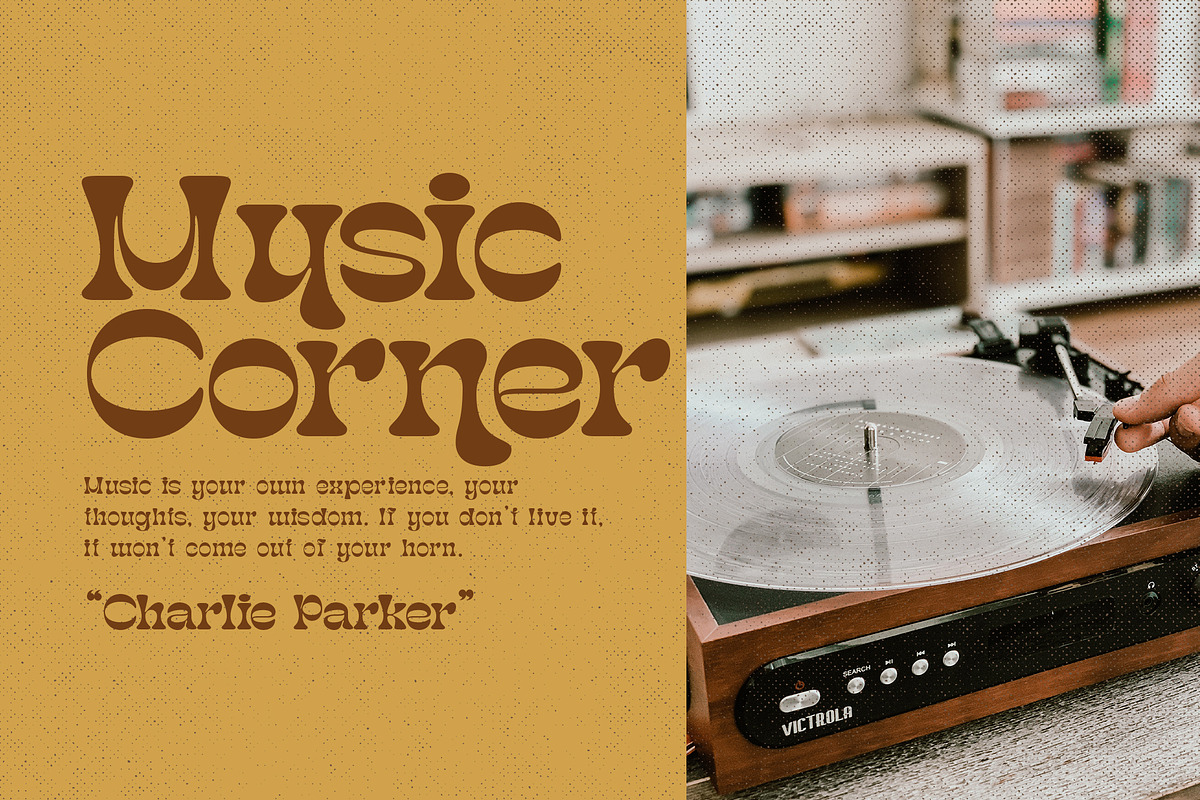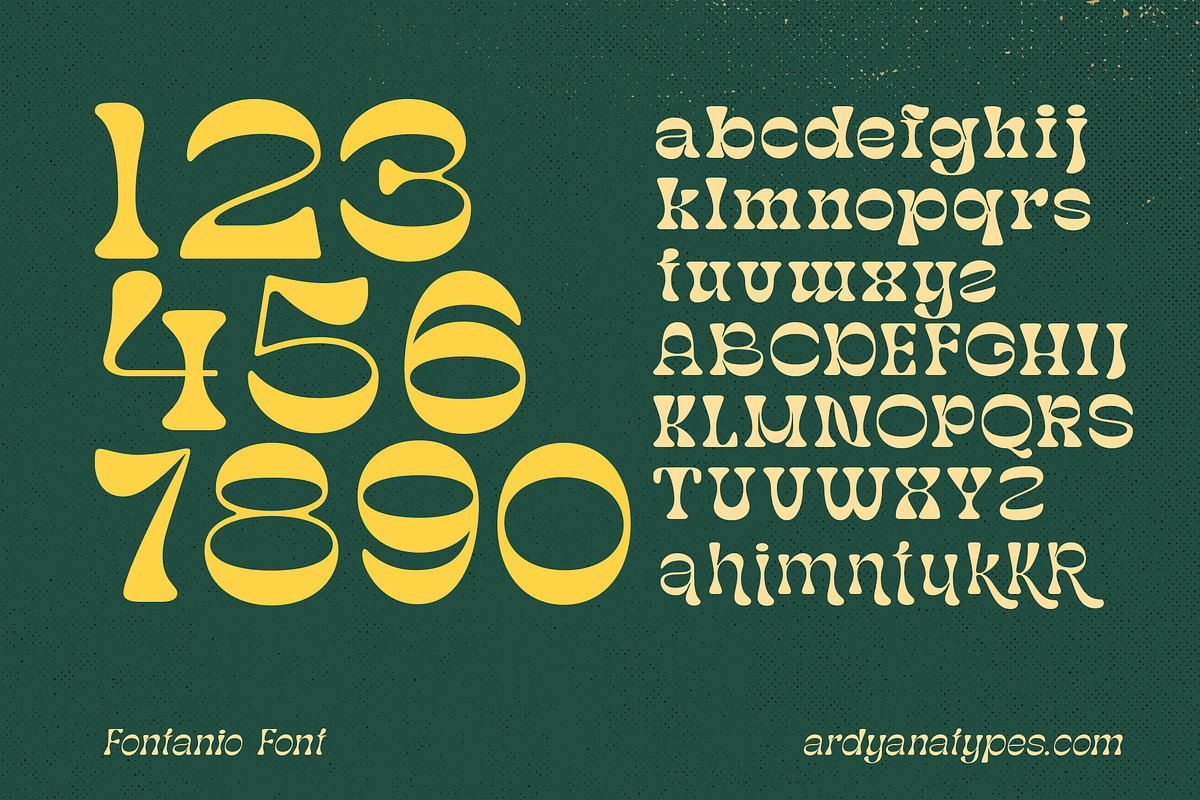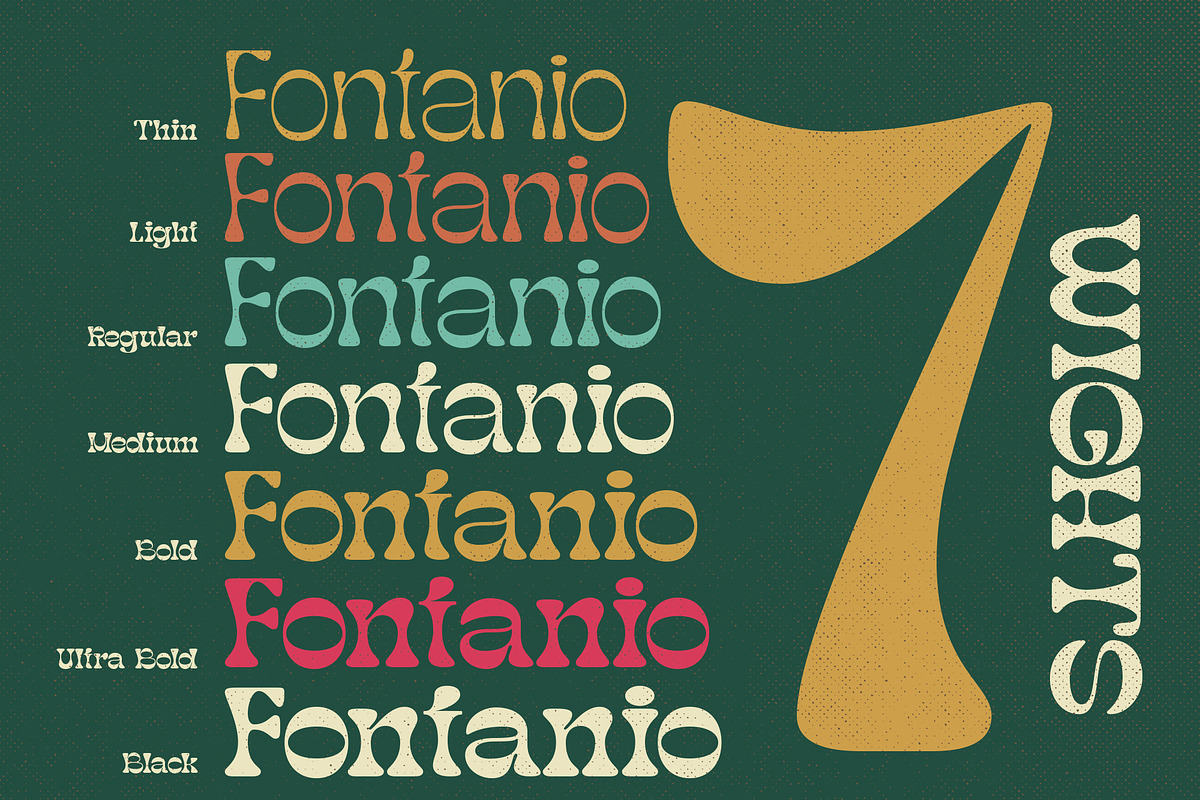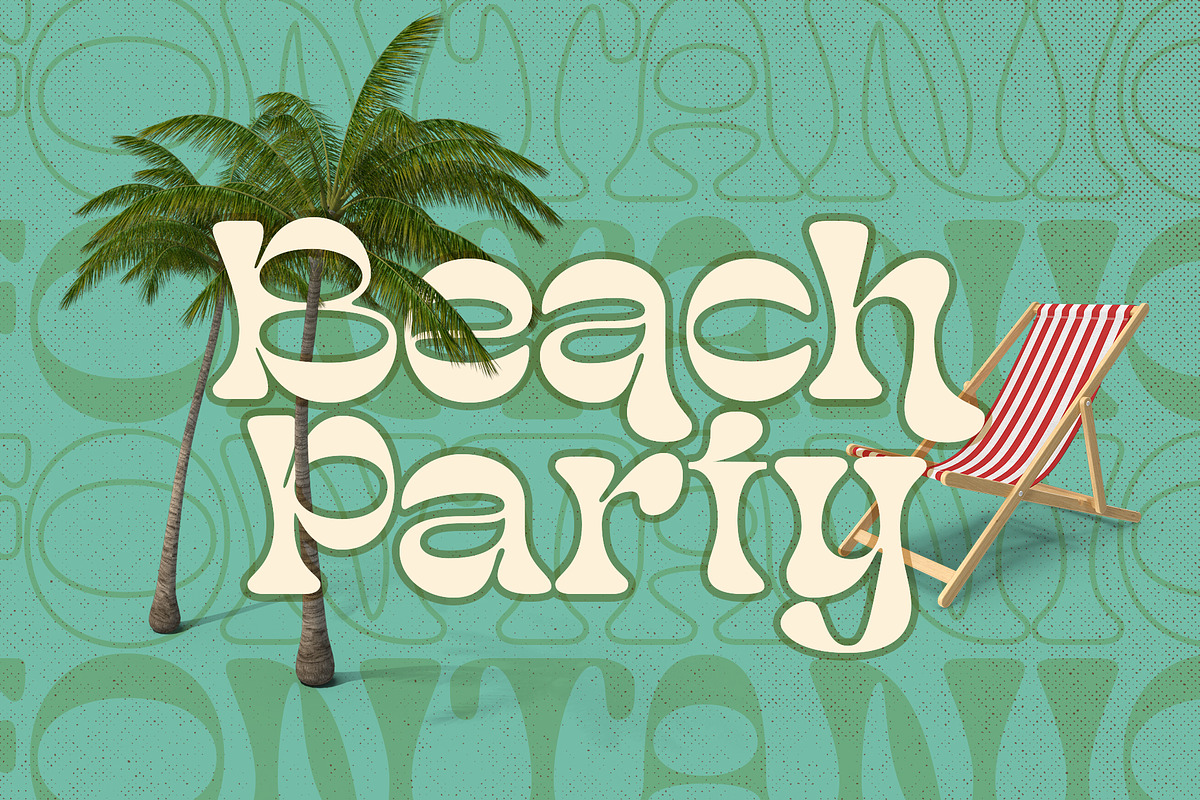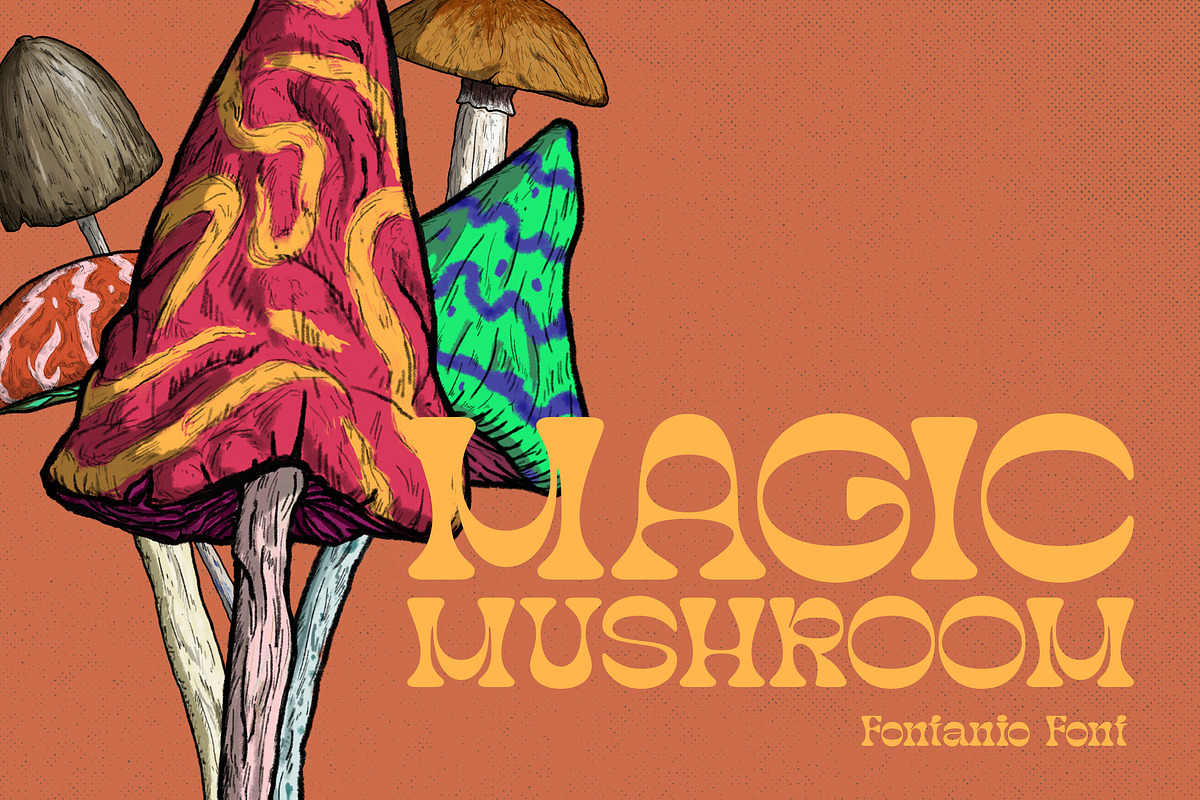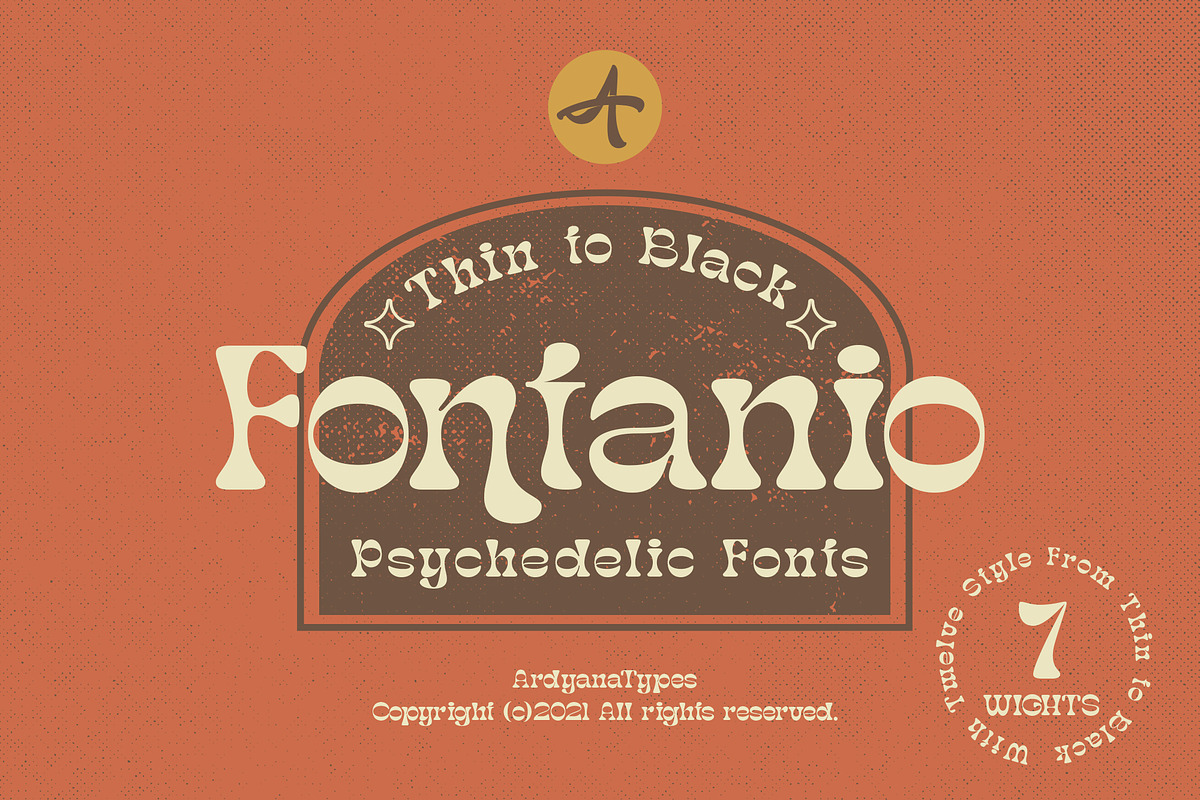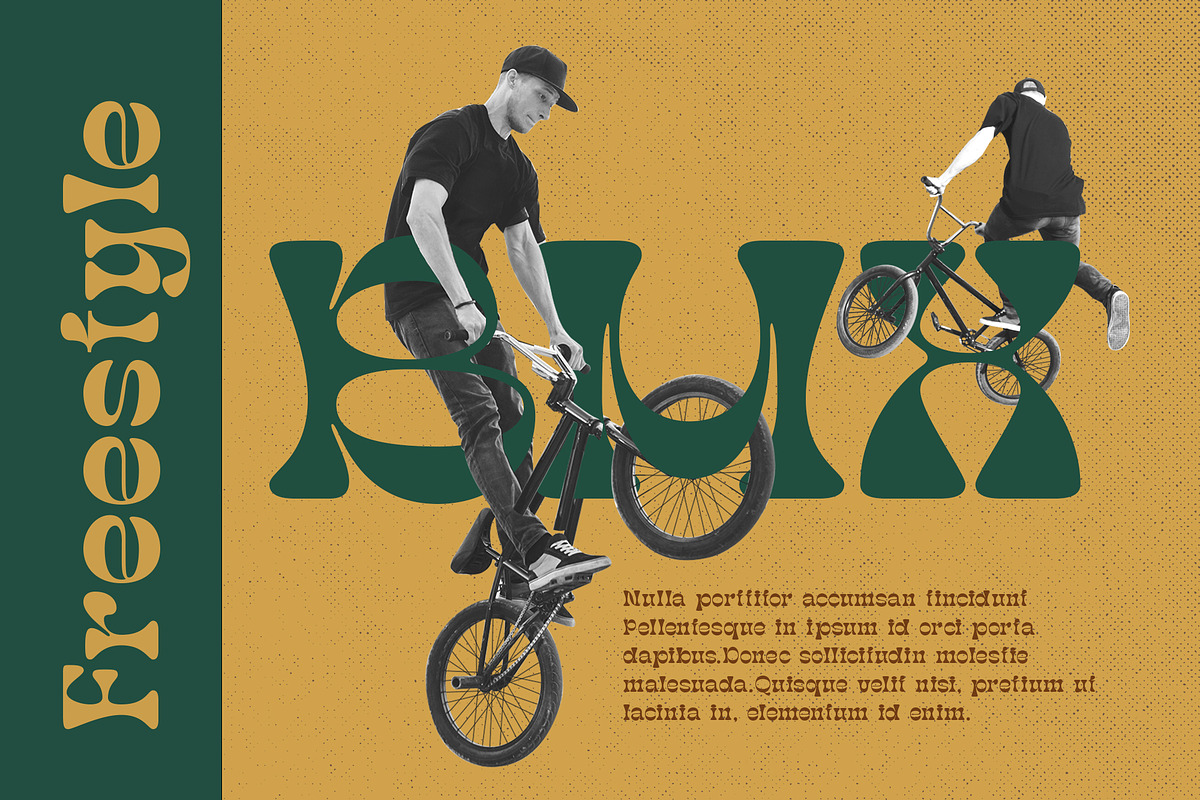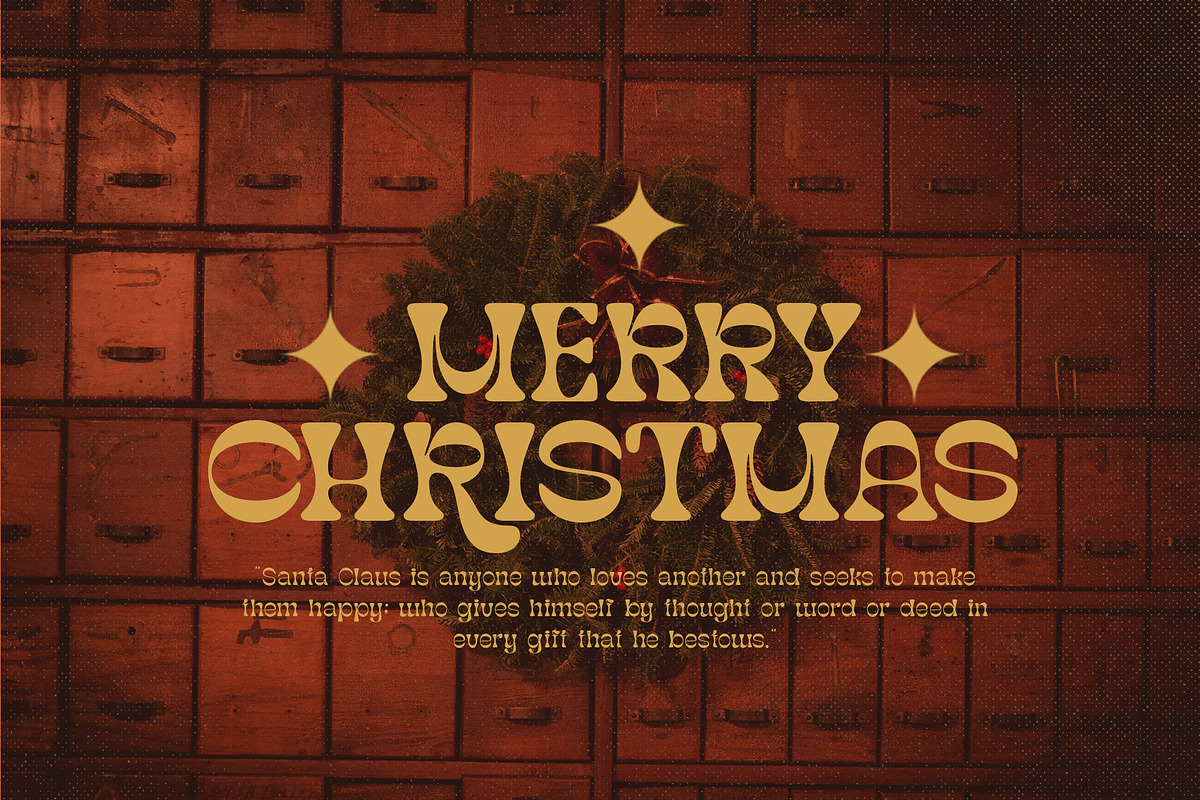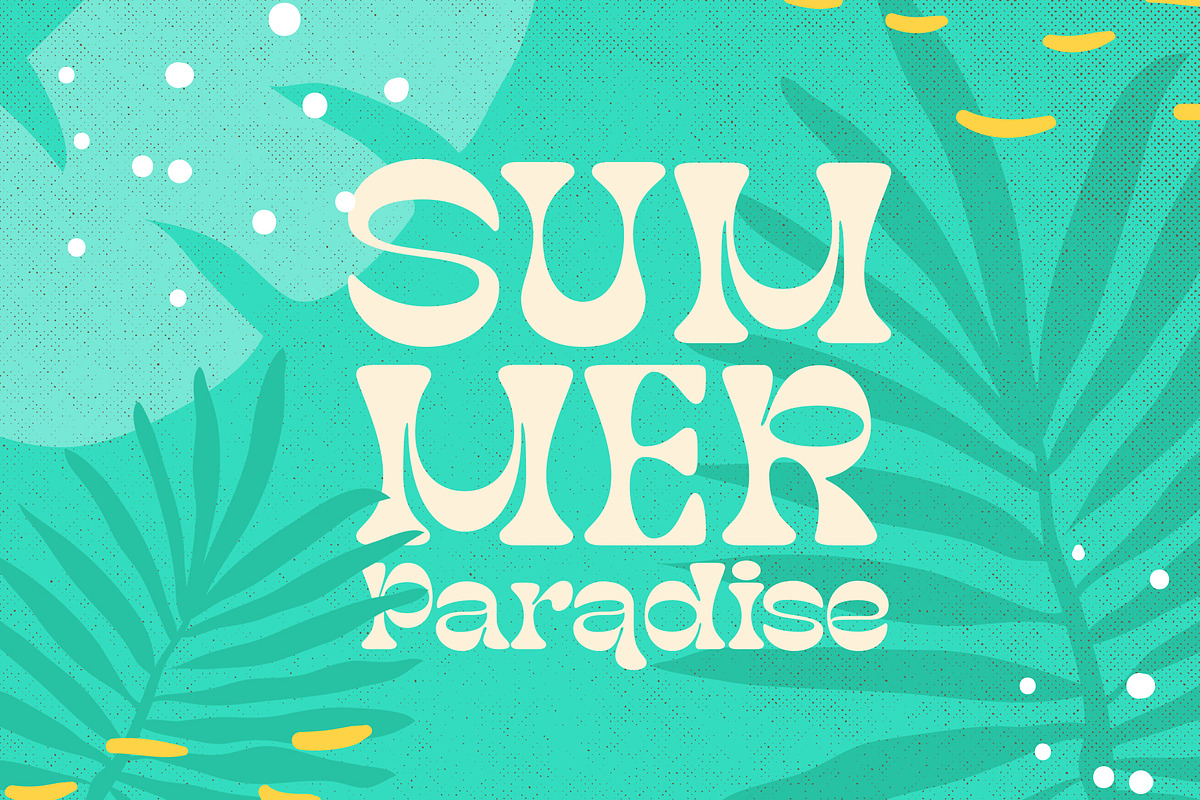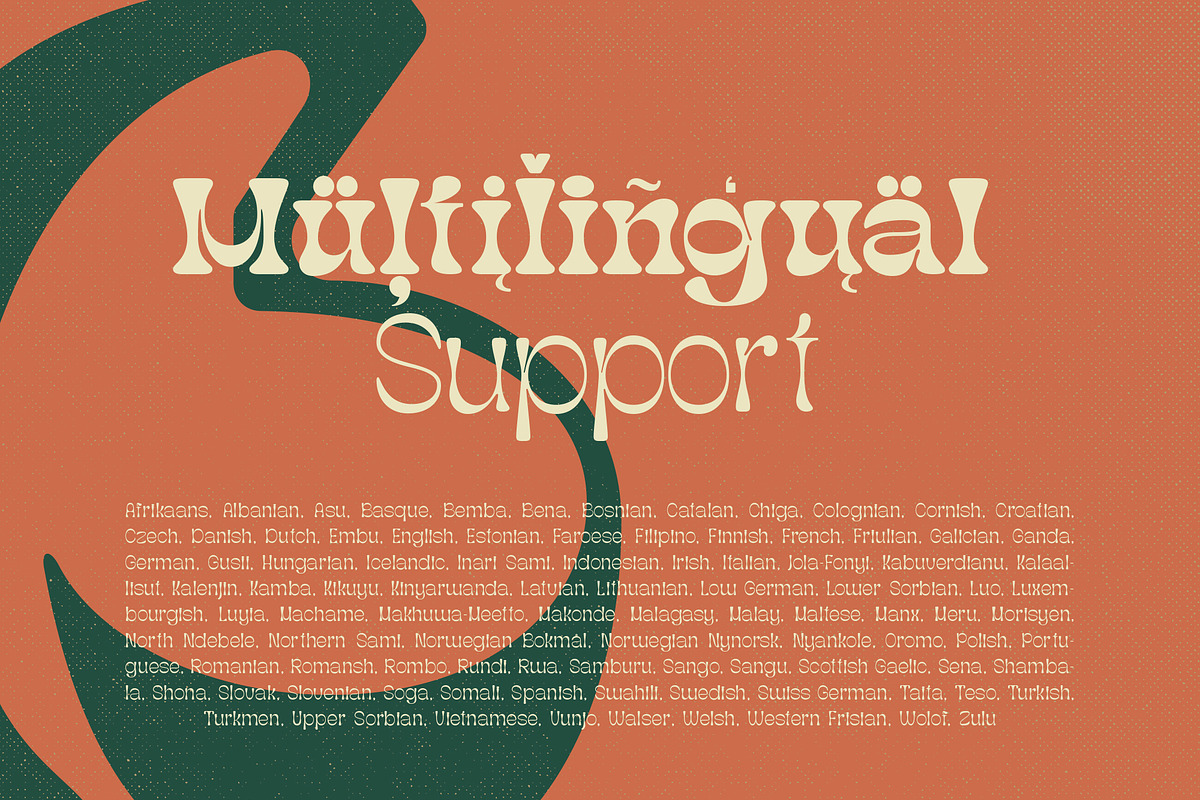
Fontanio
Fontanio Font comes in a retro psychedelic style. Fontanio has 7 usable weights from thin to thick, making it suitable for any design style. Many designers use this type of font for projects with the theme of happiness and fun.
Fontanio is perfect for any project that has a retro and classic style. Fontanio also comes with multiple languages, making it easy to use for any country and language use, and also comes with alternative styles to make your designs more attractive,